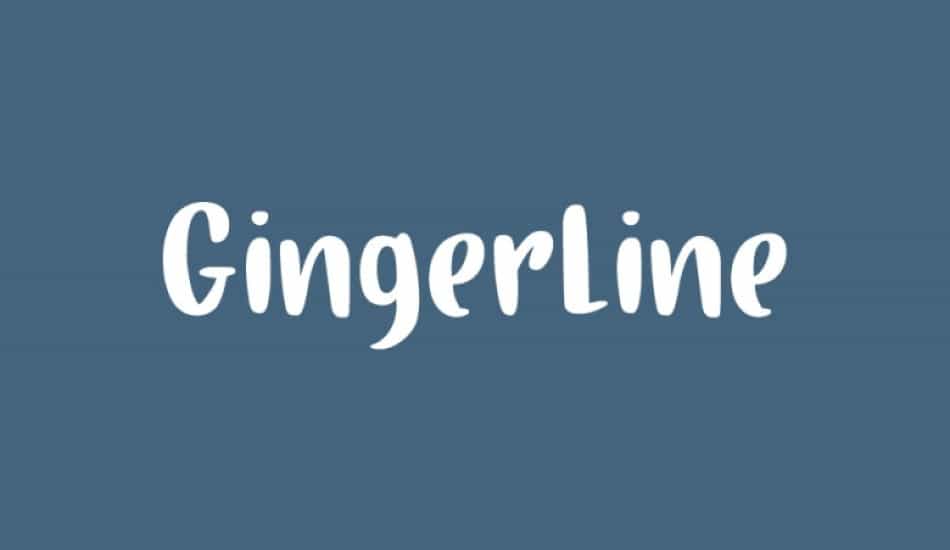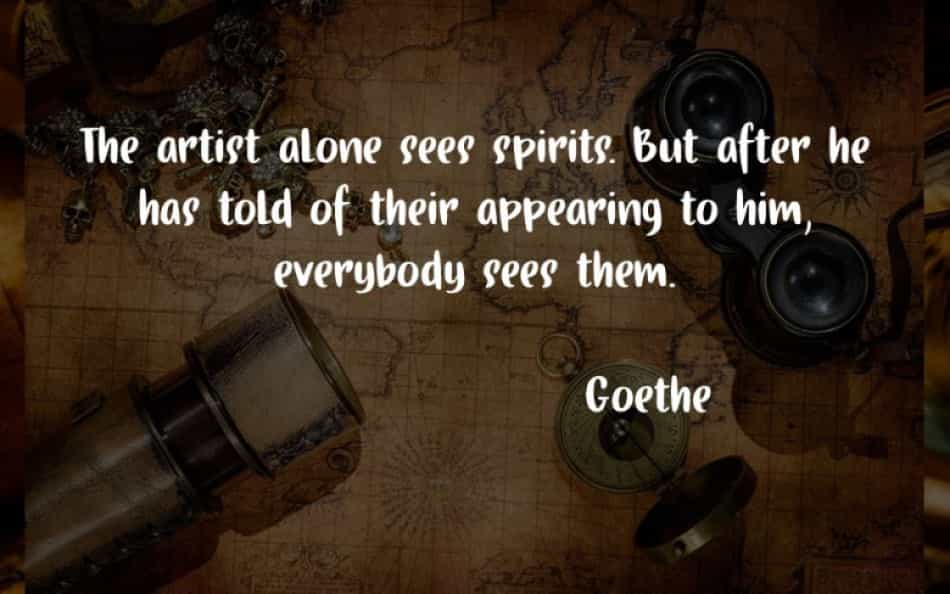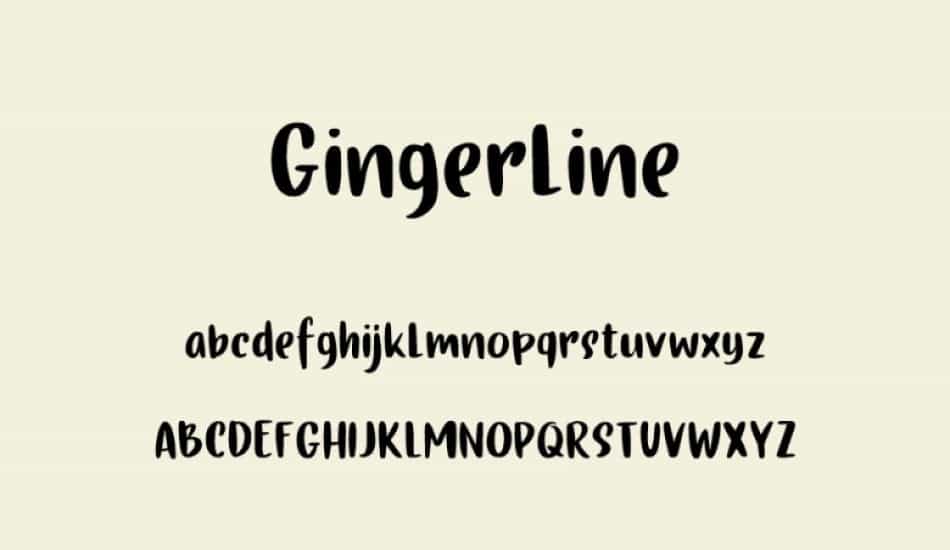
As much as I am passionate about writing, I also enjoy every time I learn new words. I came across the term Gingerline after I have named an older font Gamboge. Just like Gamboge, Gingerline is an orange hue; more specifically, the color of ripe kumquats. Didn’t know that! Gingerline font is a font that is written by hand; it is neat and even, thick and thin and overall, it looks quite classy if I may say so. It also comes with an abundance of diacritics.